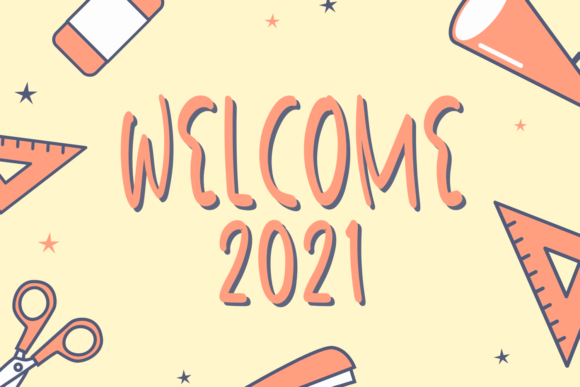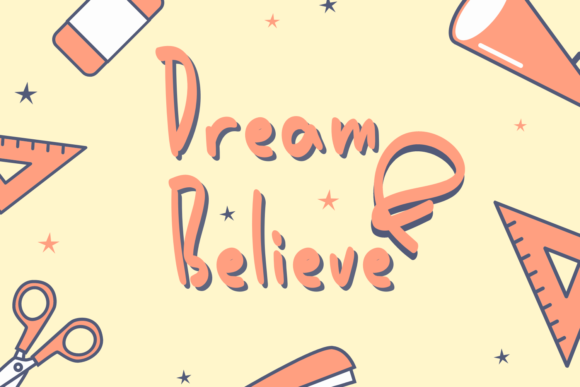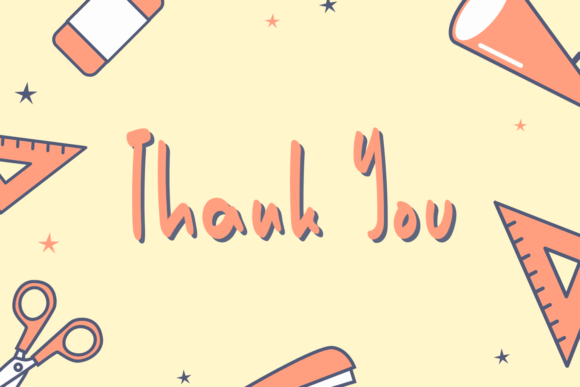
Go to School Font
About Go to School Font
Go to School is a handwritten font that can be used for all chalkboard quotes or teaching material! Its authentic look and feel will add a personal and realistic feel to your designs.